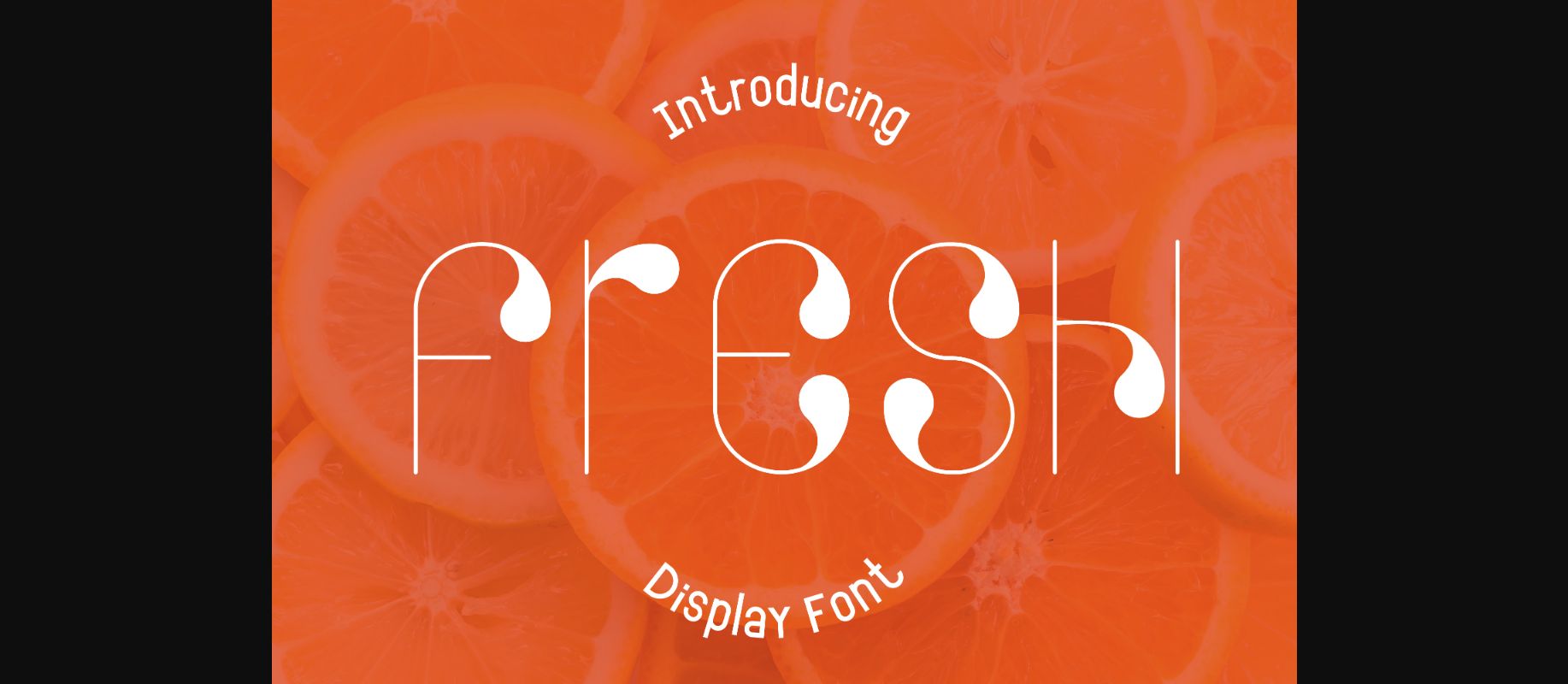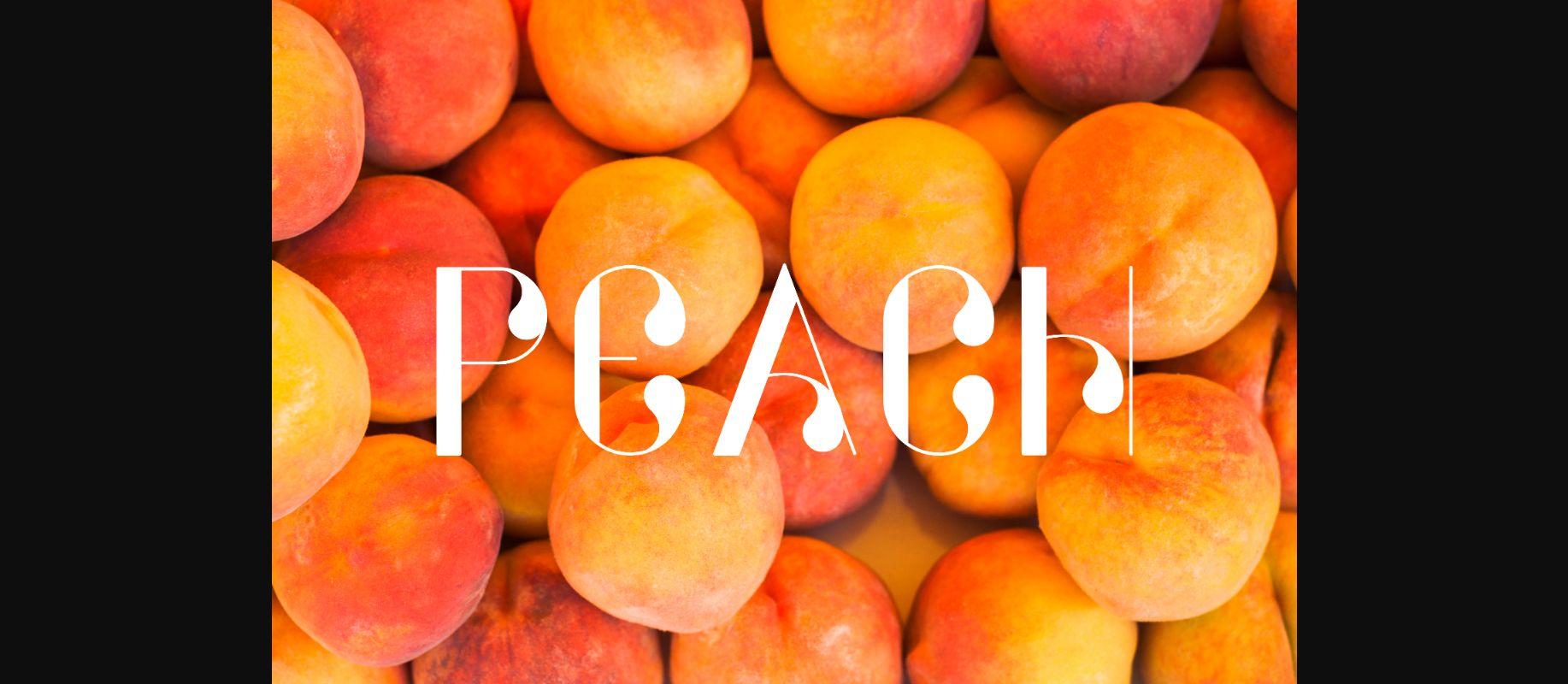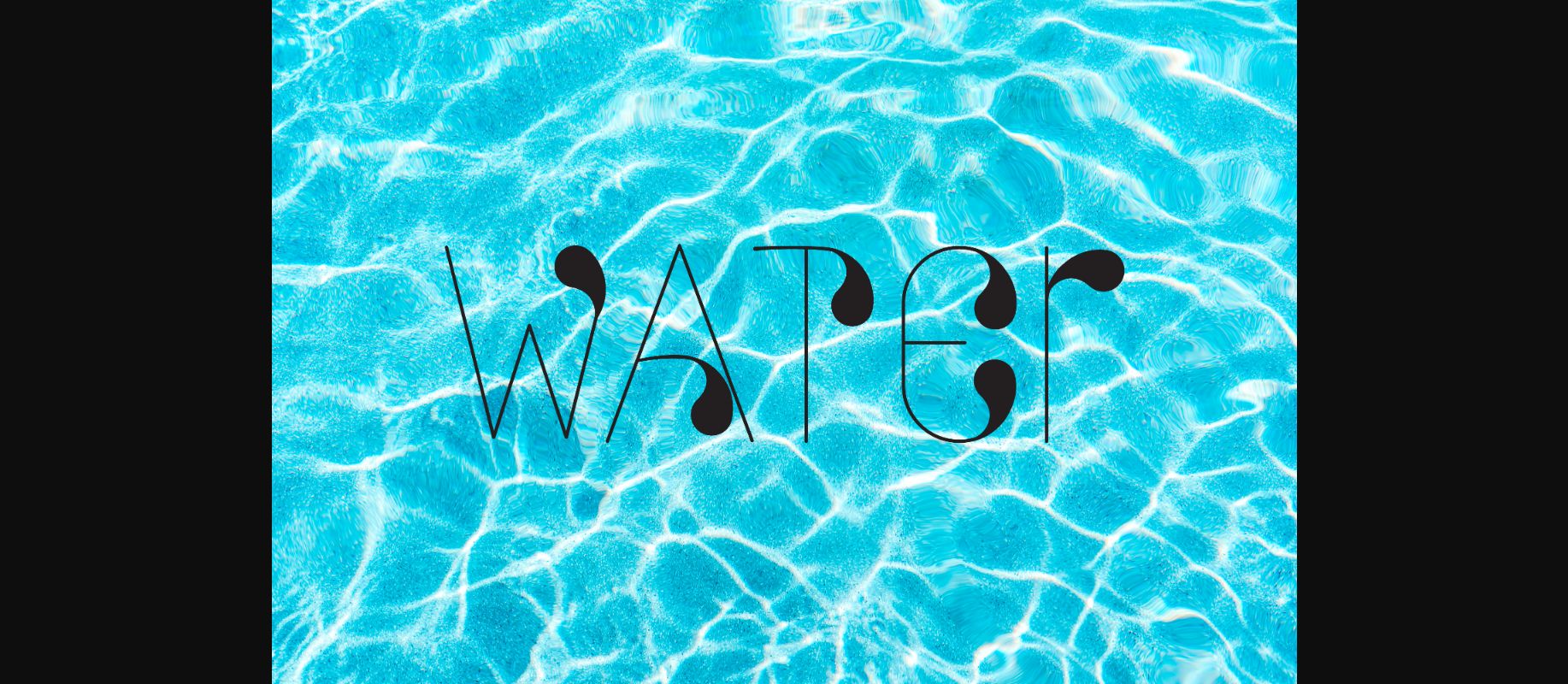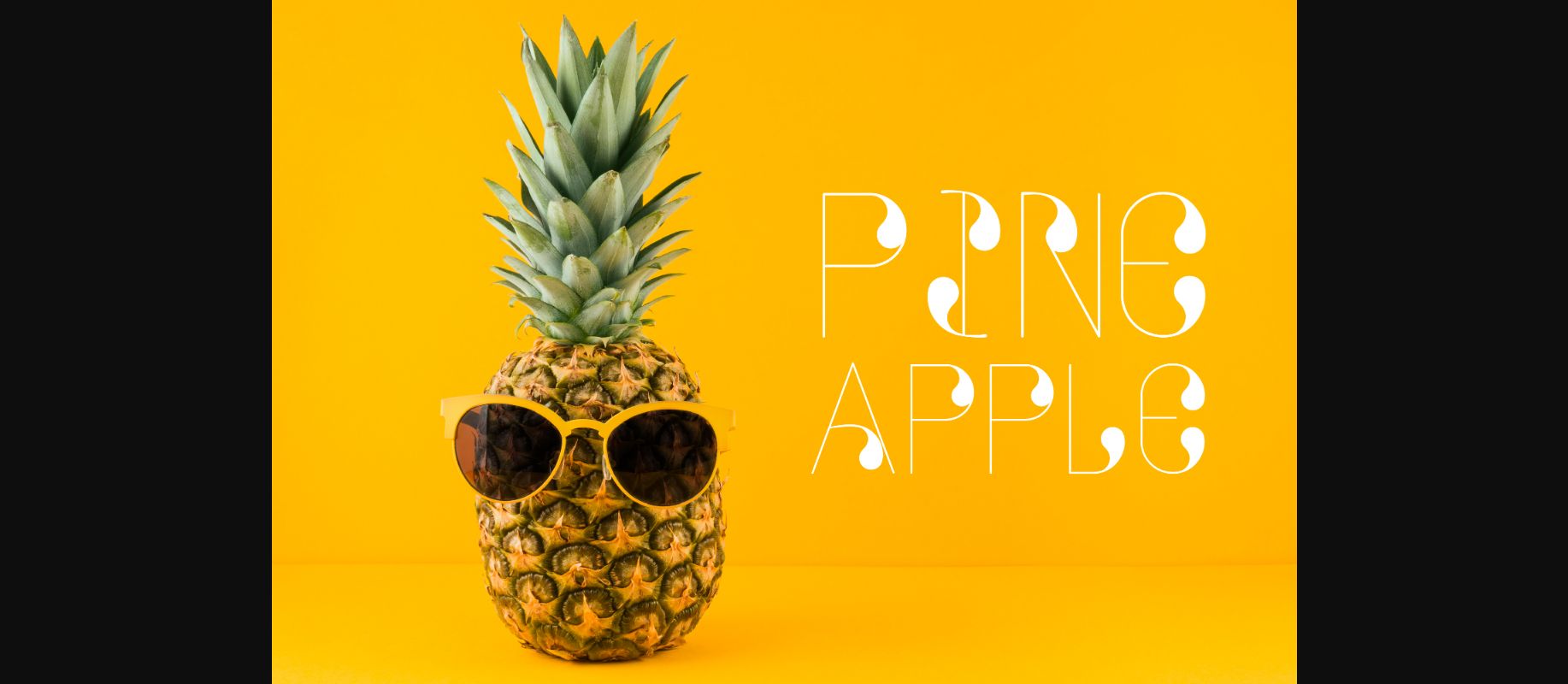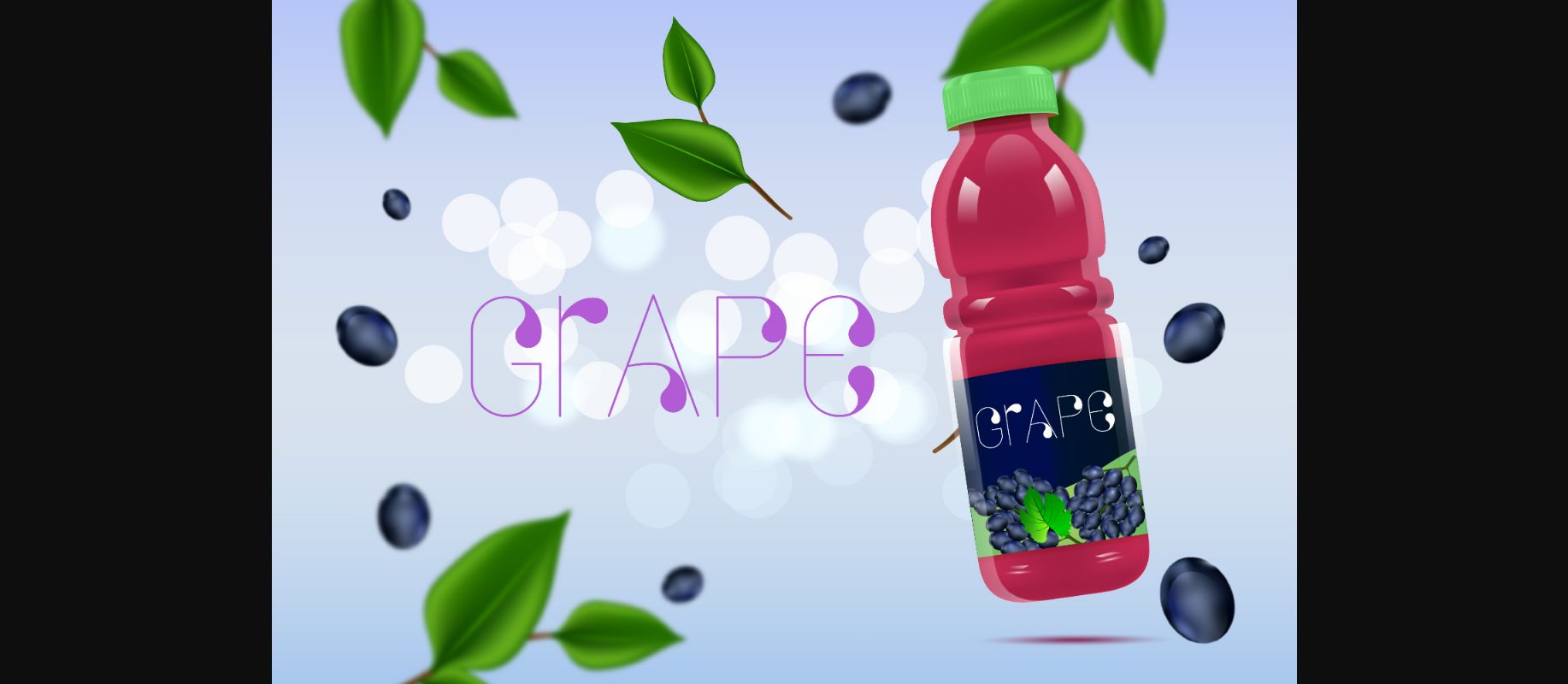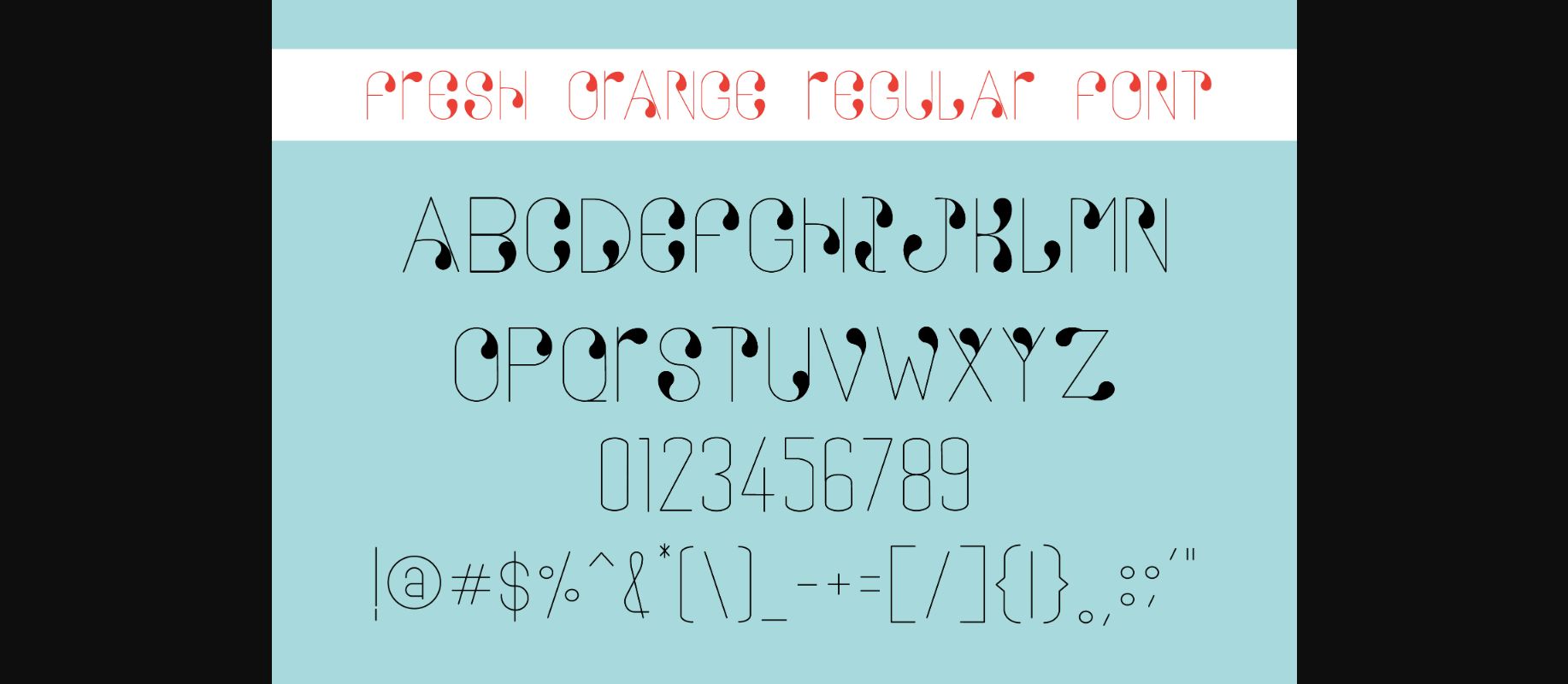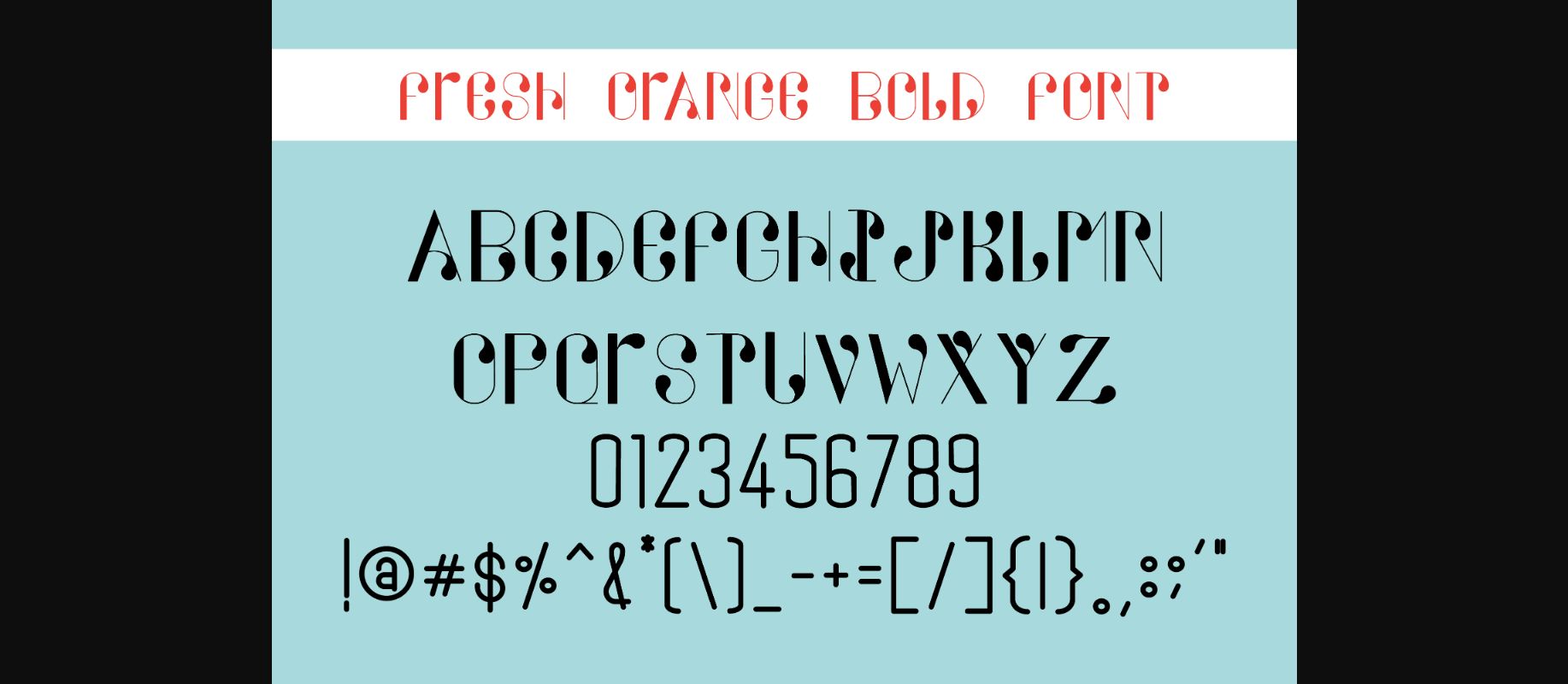
Fresh Font
About Fresh Font
Fresh is a modern and quirky decorative font. Masterfully designed to become a true favorite. It maintains its classy calligraphic influences while feeling contemporary and fresh. Fall in love with it and bring your projects to the highest levels!